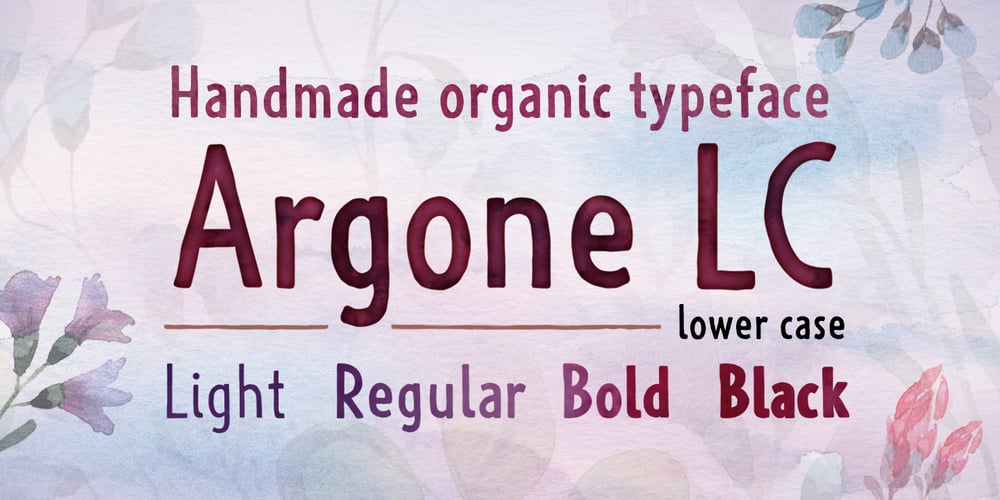
Argone LC Font Family was designed by Deepak Dogra and published by Graphite. Argone LC contains 4 styles and family package options. Argone LC is a handmade organic typeface family. It is a variant of Argone typeface, but has lower case letters. It comes in four weights– light, regular, bold and black, which is a feature not seen much in handmade typefaces. This makes Argone LC a versatile and flexible type family. There is also a version of Argone LC which only has upper case letters – Argone